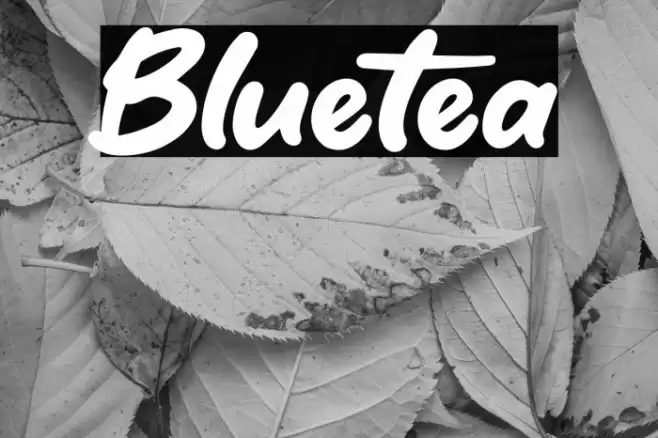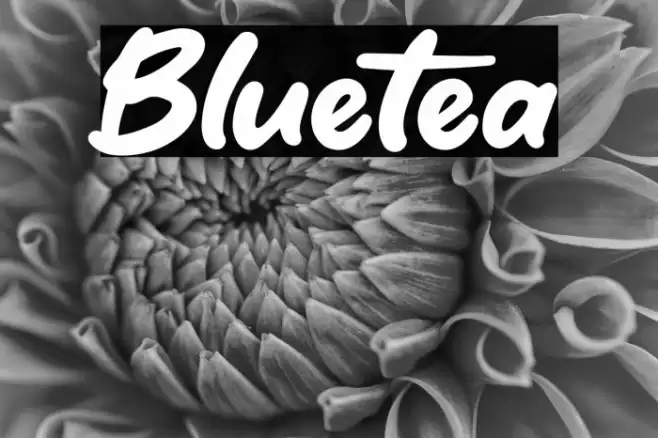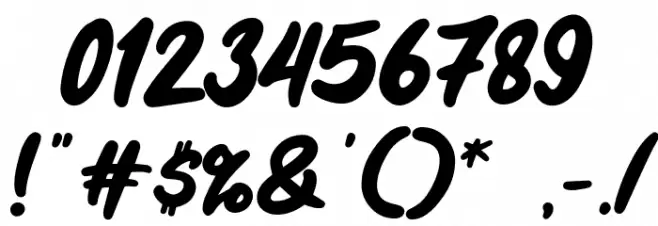
Bluetea Font
Bluetea Description
This font features a bold and dynamic script style that exudes a sense of energy and creativity. The letters are connected in a fluid manner, with a consistent stroke width that gives it a cohesive appearance. The uppercase letters are slightly larger and more pronounced, while the lowercase letters maintain a smooth flow. The numbers and special characters are designed to match the overall style, ensuring uniformity across all elements. This font is ideal for projects that require a personal touch or a handwritten feel, making it suitable for creative branding, invitations, and artistic designs.
A bold, dynamic script font with fluid, connected letters and consistent stroke width from Cartoon fonts.
- Proposed Projects: Creative branding, invitations, artistic designs, personal projects, and logos.
- Use Case: Logos, Invitations, Creative Branding